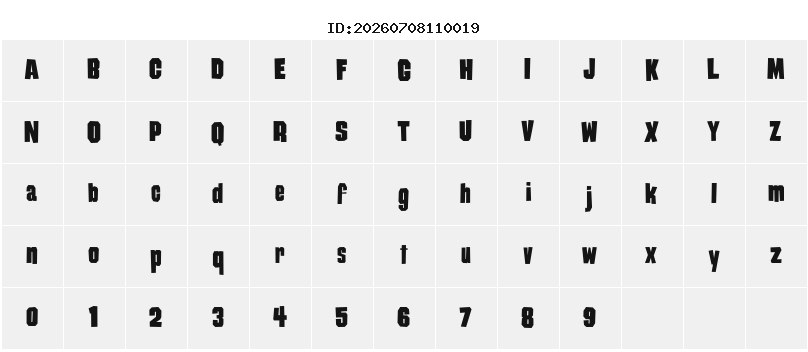
• Font Name: Damaged
• Font Style: Goods
• Font ID: Macromedia Fontographer 4.1.5 Damaged Goods
• Full Font Name: Damaged Goods
• Version: Macromedia Fontographer 4.1.5 9/25/05
• PostScript Name: DamagedGoods
• Character Count: 90
About Damaged.ttf
Damaged.ttf is a modern, elegant sans-serif font designed for ultimate readability and visual harmony. Perfect for branding, headlines, web design, and print materials.